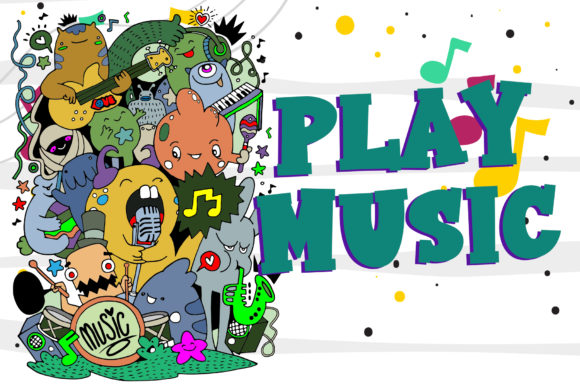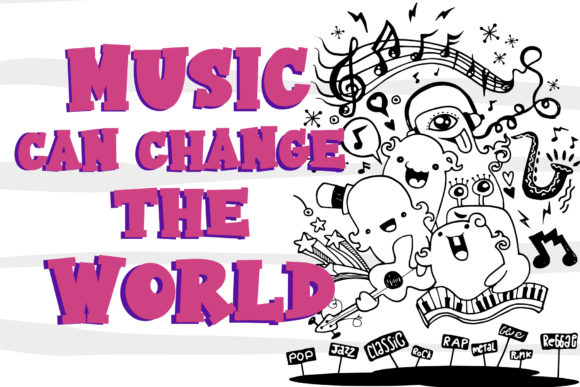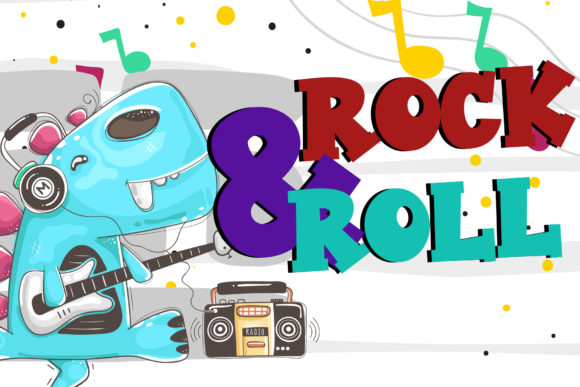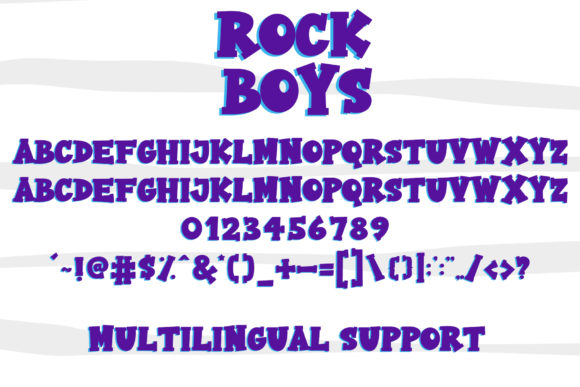
Introduction to Rock Boys Font
Rock Boys is a bold display font, carefully handcrafted to become a true favorite.
This font is the perfect fit for all of your logos, branding, social media, and crafty DIY projects .
Key Features of Rock Boys Font